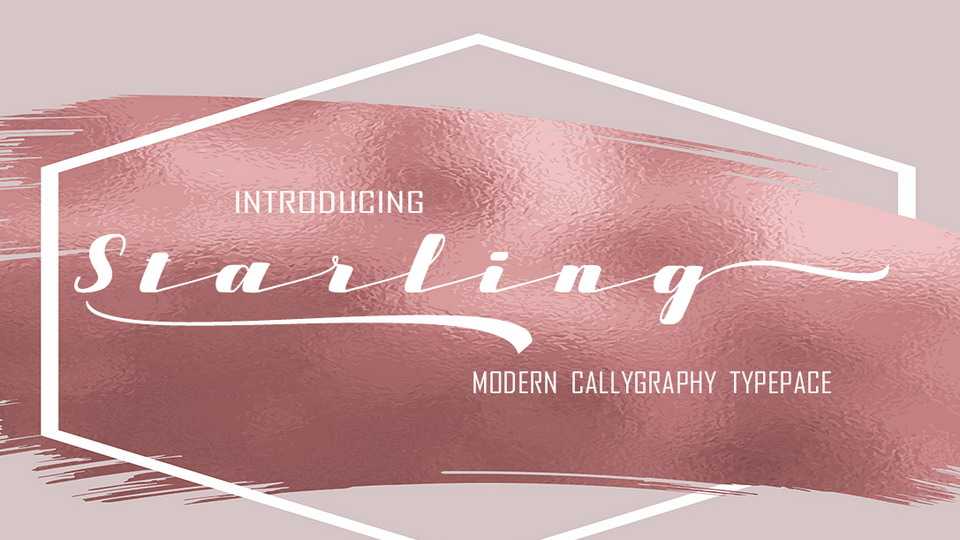
Starling Font › Fontesk – Download Grátis
Download Starling font, a fancy modern calligraphy script with wide strokes and beautiuful swashes. Starling font looks great for fashion and media, logo and branding, apparel, wedding decoration and more.